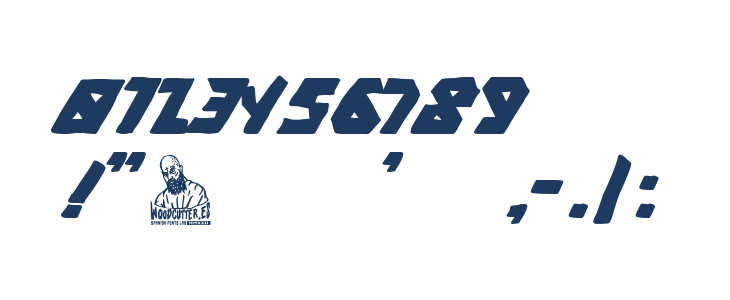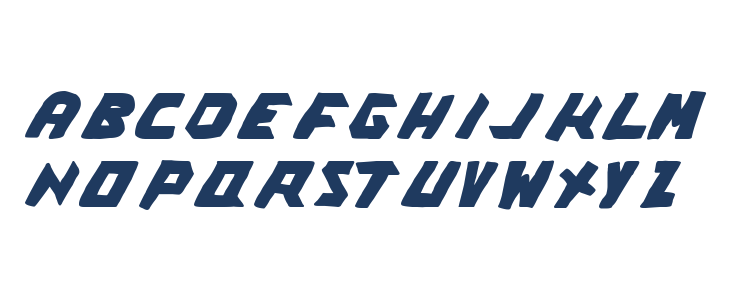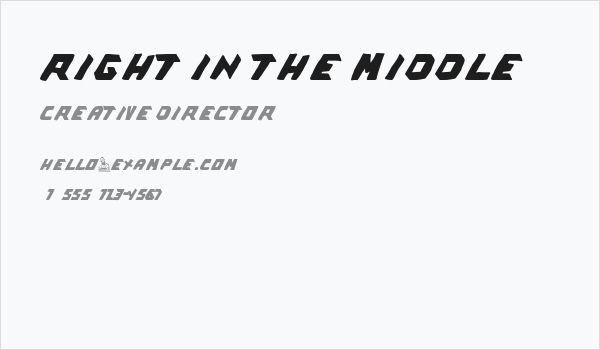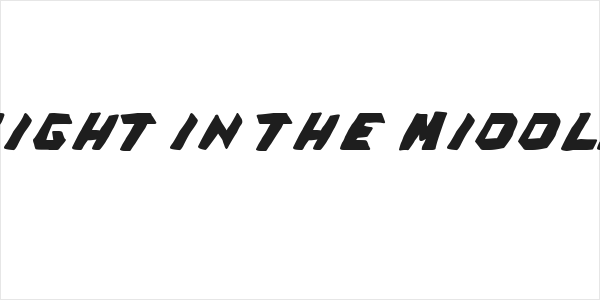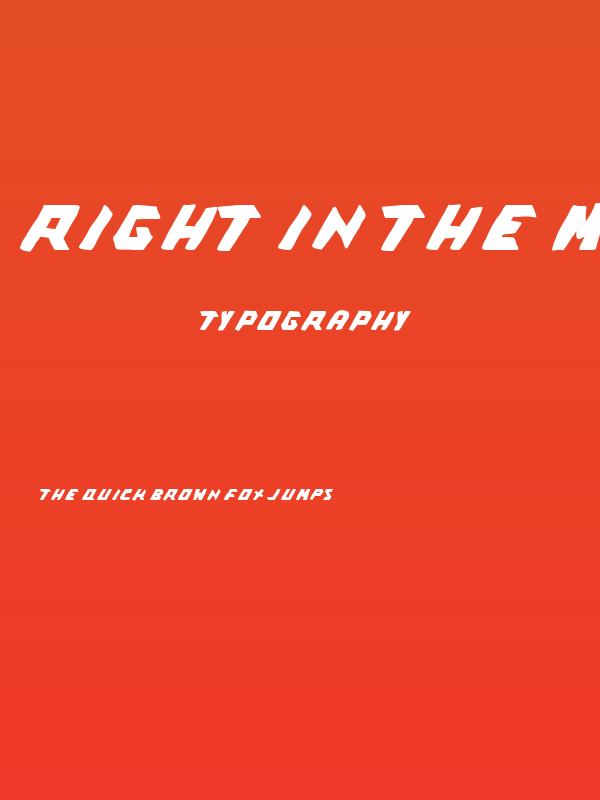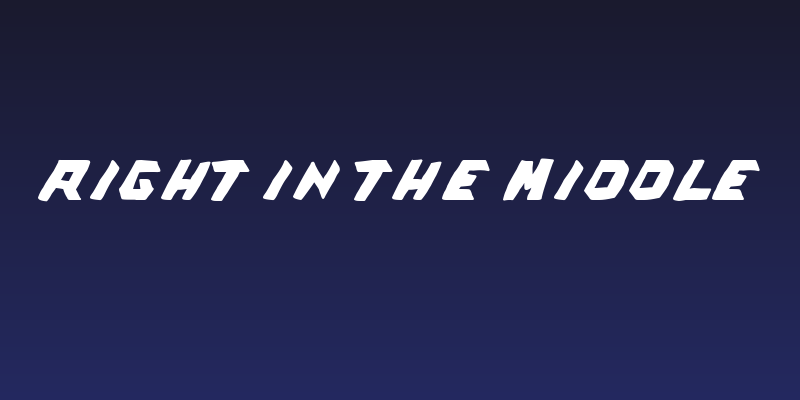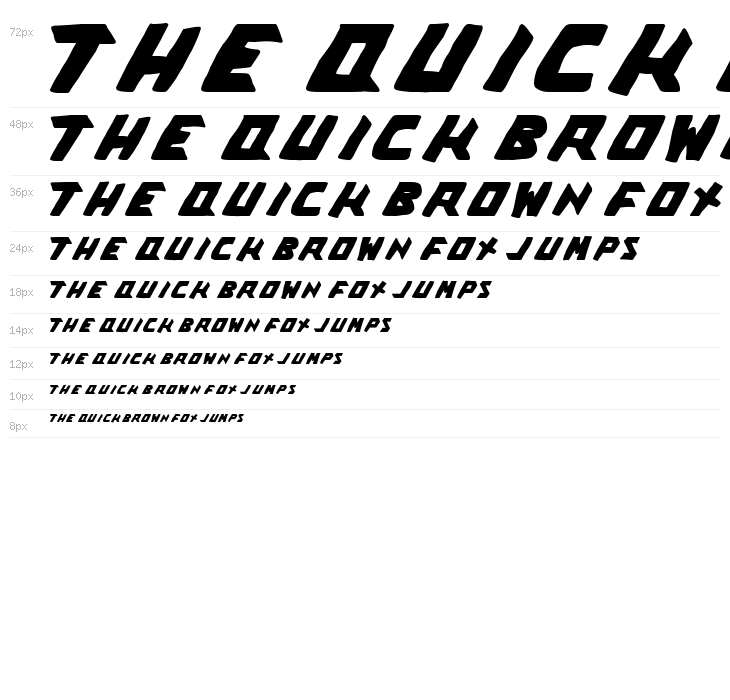
Right in the Middle Font
Right in the Middle Description
A bold, angular, and geometric sans-serif typeface with a strong forward slant, featuring sharp edges and a dynamic, futuristic appearance. The characters are wide and heavily stylized, with consistent stroke thickness and minimal contrast.
| Overall Style | Futuristic, Decorative |
| Proposed Projects | Posters, sports branding, video game titles, action movie graphics, event flyers. |